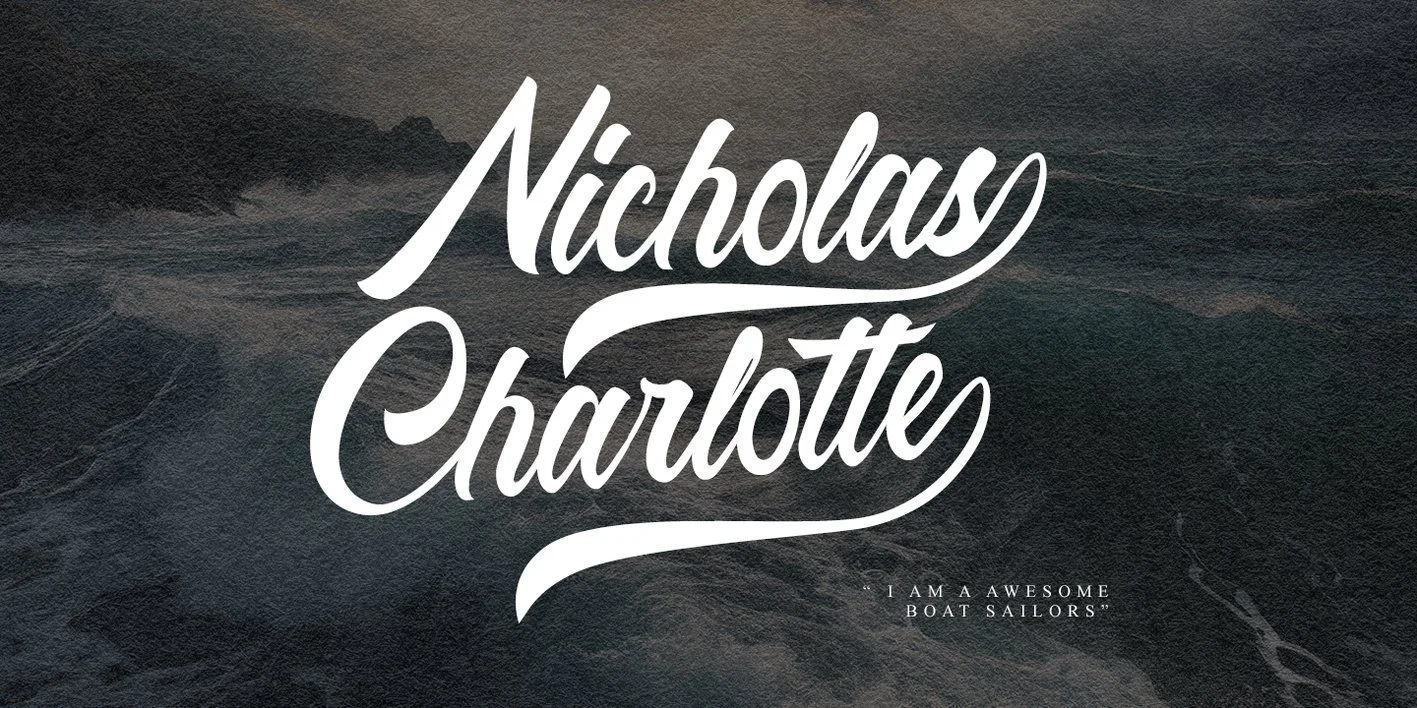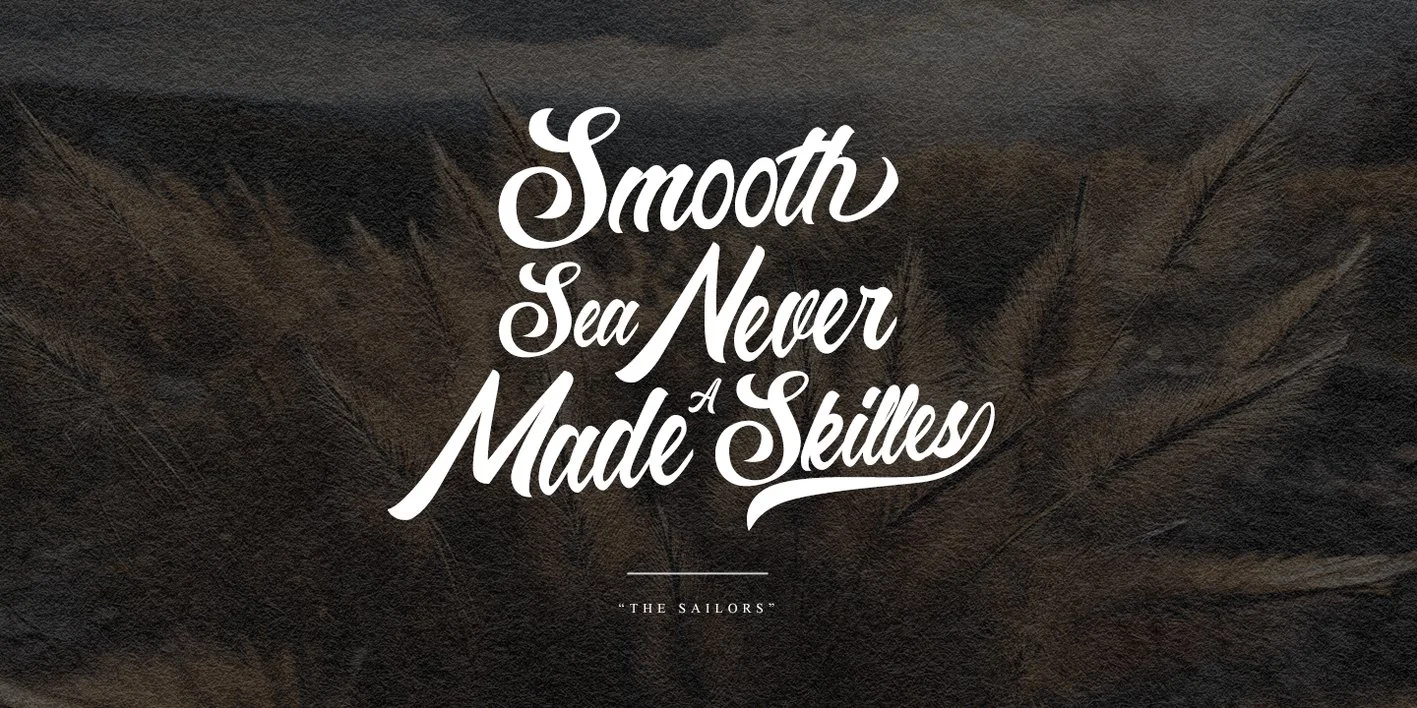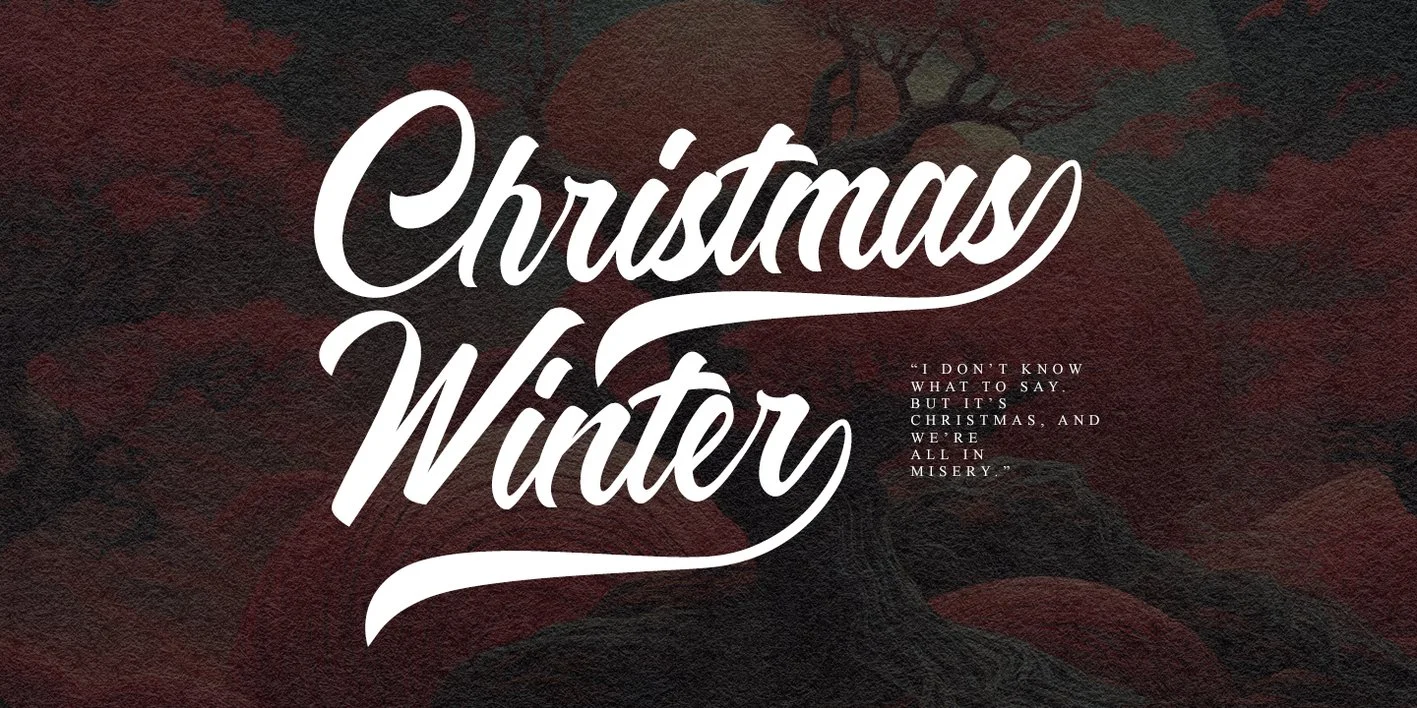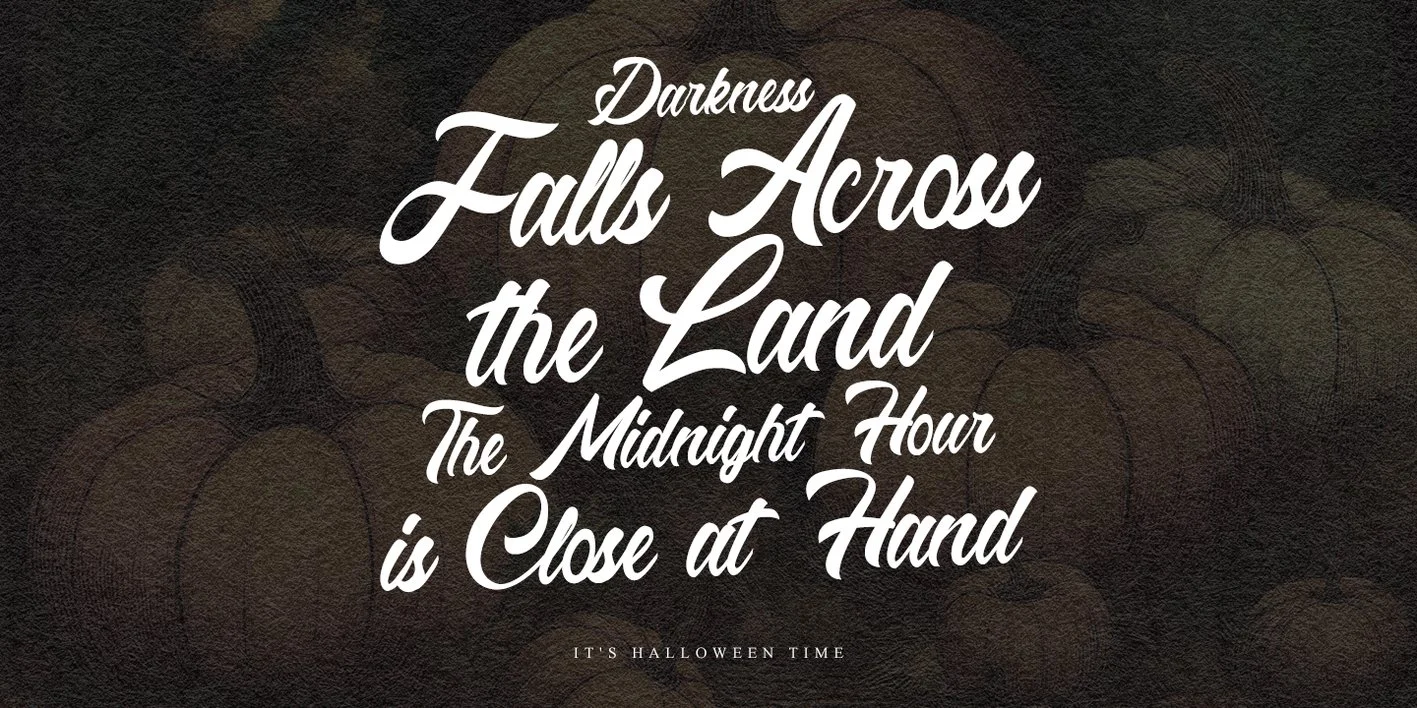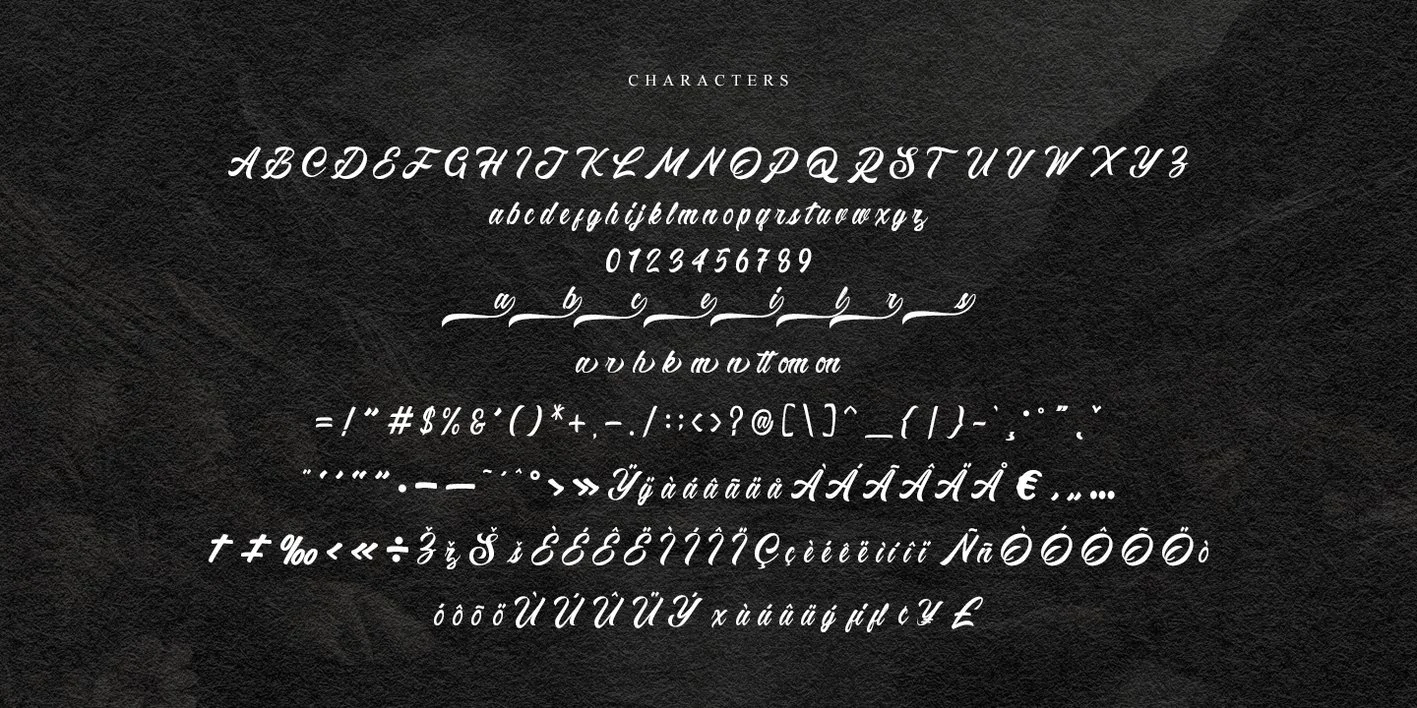
MC Sailor Batavia Font
A good typeface communicates tone before a single word is read. MC Sailor Batavia achieves this through a confident voice that adapts to diverse briefs. The typeface brings a versatile sensibility to a broad range of creative disciplines, with optical balance across all weights that holds up whether the work is print-first or screen-first.
In practice, MC Sailor Batavia proves particularly effective for signage systems, product labels, annual reports, social media graphics, packaging design. Designers reaching for it find that the type decisions feel resolved rather than laboured — a useful quality when client timelines are tight.
The range of applications extends to web design, brand identity systems, environmental graphics, editorial layouts. That breadth is deliberate: the proportions and spacing were stress-tested across a wide range of mock briefs before the typeface was finalised.
The consistent rhythm of MC Sailor Batavia across a full paragraph creates the kind of even grey value that makes extended reading comfortable, a detail that matters more in long-form content than its subtlety might suggest.
Freelance designers across print and digital disciplines find MC Sailor Batavia a reliable choice for projects that demand both personality and restraint. The design avoids the self-conscious quirkiness that dates quickly, settling instead for considered distinctiveness that holds up over time.